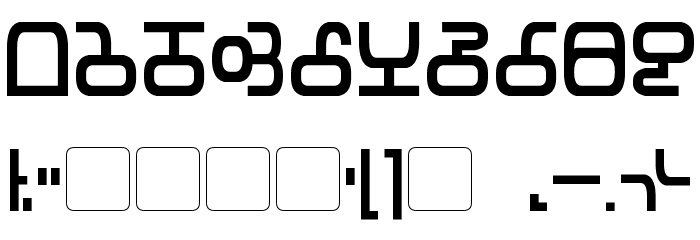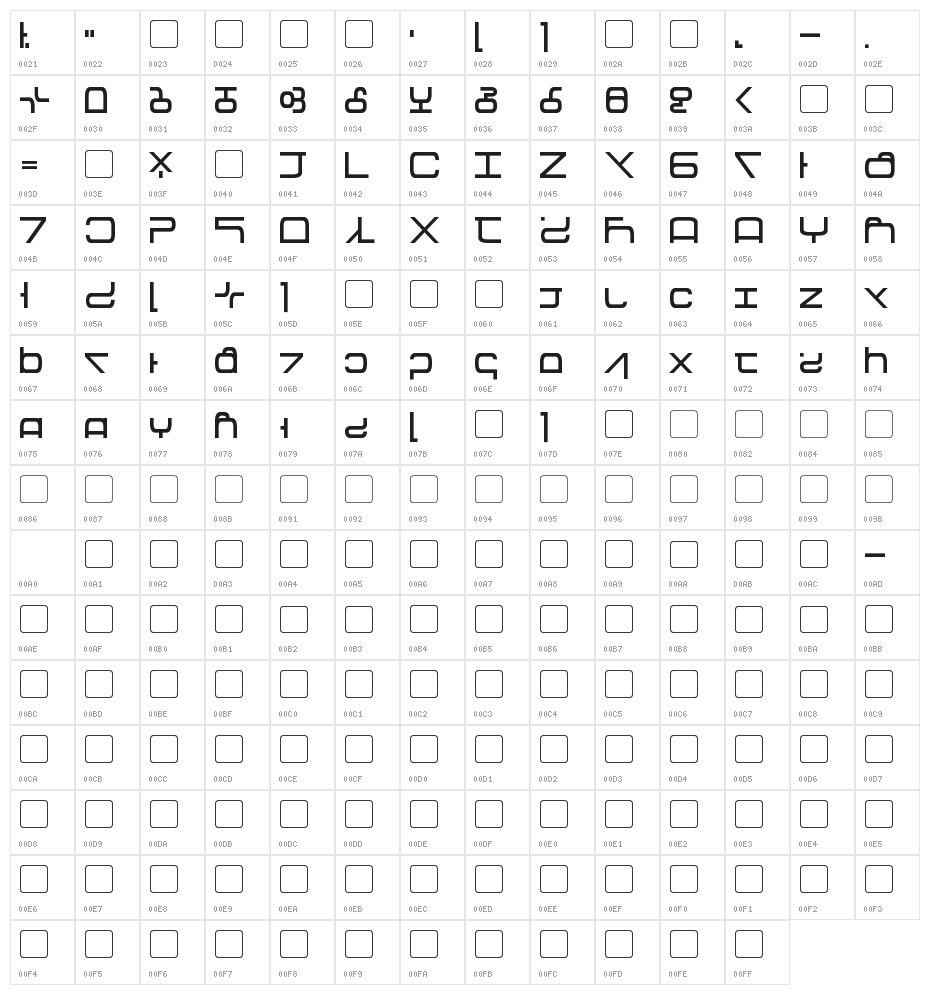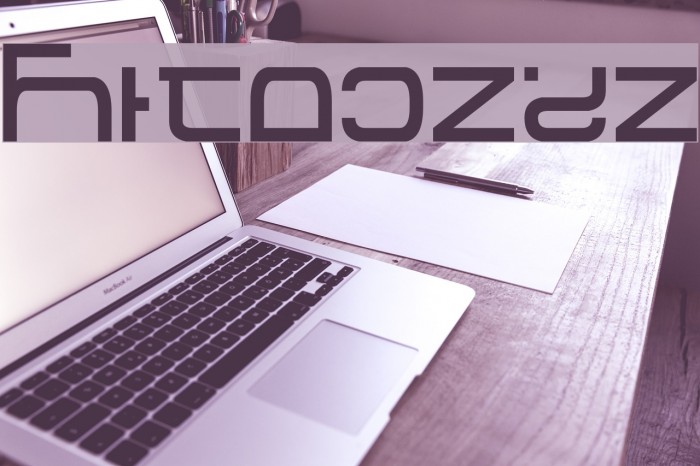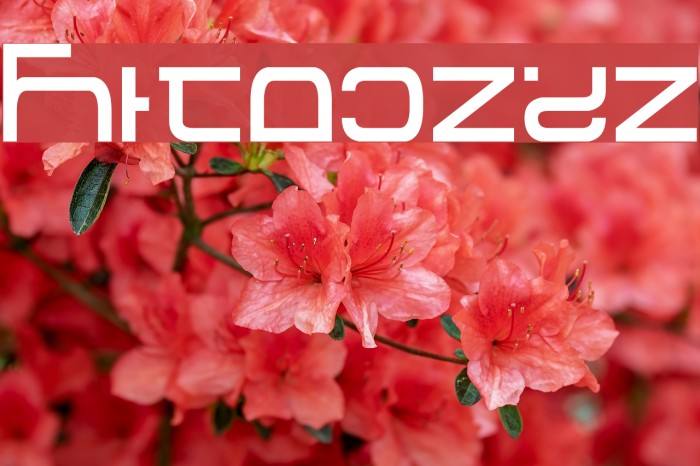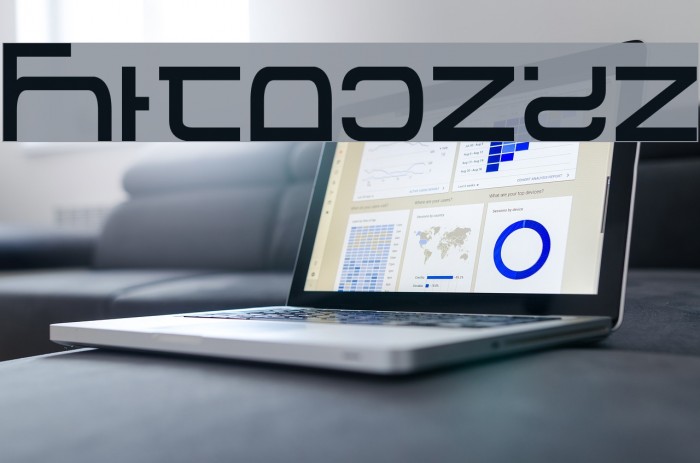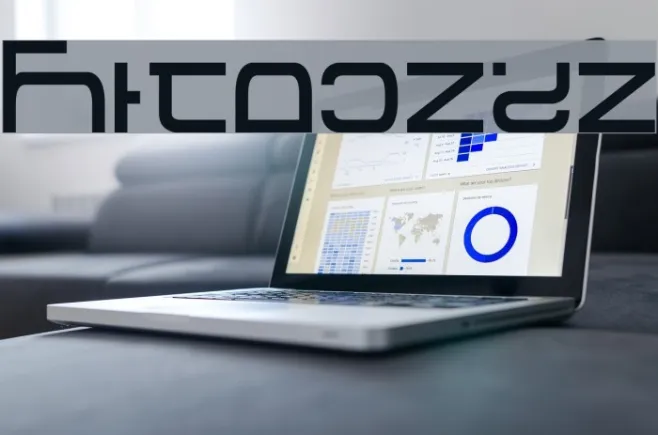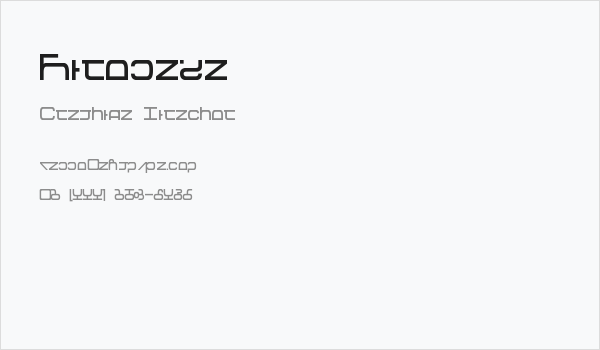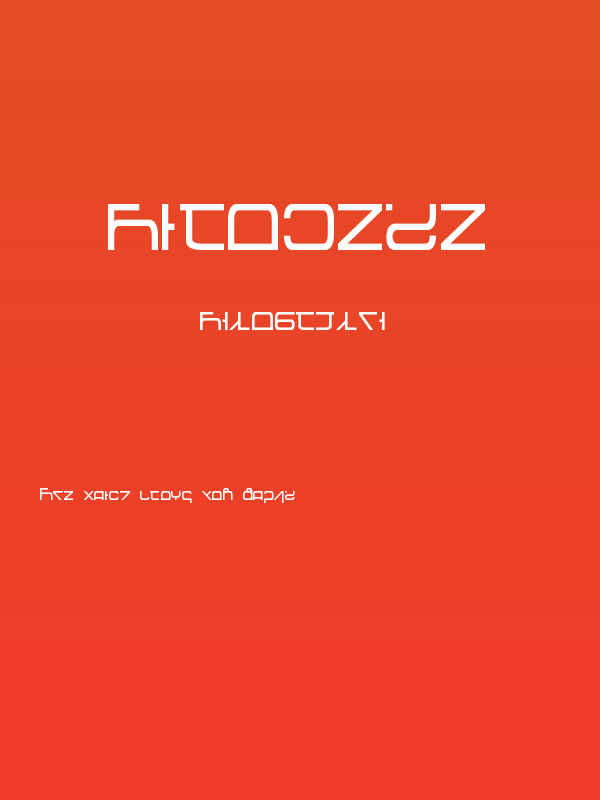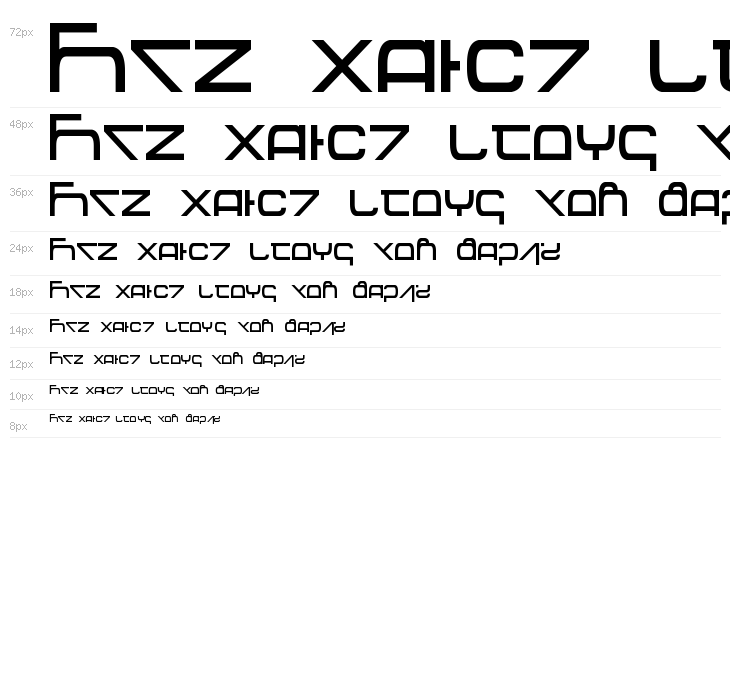
Tirolese Font
Tirolese Description
This font features a unique and futuristic design with geometric shapes and angular lines. The characters are constructed with a combination of straight edges and sharp angles, giving it a distinct, modern appearance. The uppercase letters are bold and striking, while the lowercase letters maintain a consistent style with slight variations in form. Numbers and special characters follow the same geometric theme, ensuring uniformity across all glyphs. The overall look is clean and minimalistic, making it suitable for projects that require a contemporary and innovative touch.